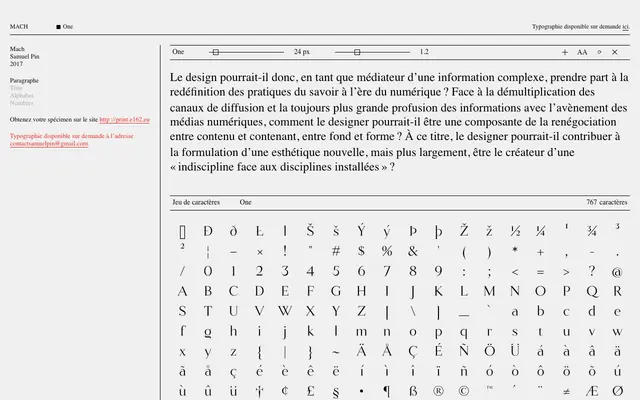
Mach
E162 · Samuel Pin · 2017
A single-weight geometric sans by Samuel Pin, available on request from the E162 foundry.
Designed by Samuel Pin in 2017 and released through the French foundry E162, Mach is offered in a single weight covering 767 characters. Distribution is handled directly via the designer, with a printed specimen available through a dedicated E162 print site. The narrow release scope and request-only availability suggest a considered, limited edition approach to distribution.
The specimen and visual context suggest a clean, constructed sans-serif with geometric qualities, consistent with contemporary French type design practice.